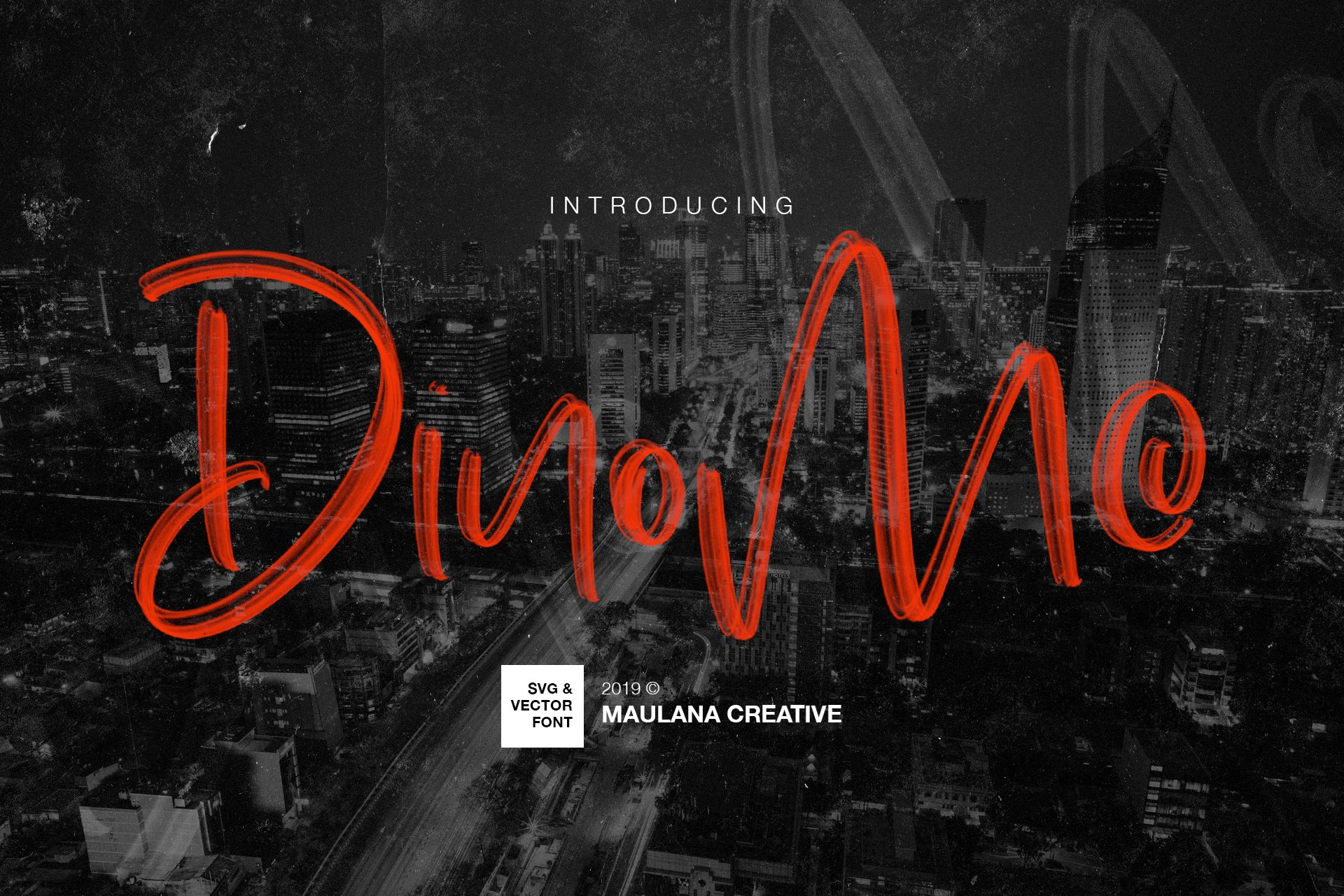
Dinomo SVG Brush Font
Dinomo SVG Brush Font is perfect for artistic brand identities, creative agency logos, handcrafted product packaging, artisan workshop signage, expressive social media graphics, organic beauty brands, authentic craft materials, bohemian lifestyle campaigns, creative studio branding, and expressive digital art projects.
What makes Dinomo SVG Brush Font so exciting is its revolutionary ability to bring authentic brush stroke artistry to digital typography through innovative SVG technology that preserves every nuance of hand-painted brush textures and organic artistic expression. This groundbreaking typeface captures the essence of spontaneous creativity and artistic authenticity with characters that seem to drip with paint and pulse with creative energy. The font's innovative design elements perfectly merge traditional brush painting techniques with cutting-edge digital technology, creating an indispensable tool that communicates artistic authenticity, creative passion, and handcrafted quality, making it essential for brands and artists who demand genuine artistic expression in their digital communications.
Dinomo SVG Brush Font comes in multiple font families including Regular, Bold, Light, Wet, Dry, Rough, Smooth, and Expressive variations. Each family member maintains the core artistic characteristics while offering different brush texture levels and creative approaches to suit various artistic and expressive design requirements.
The artistic authenticity in Dinomo SVG Brush Font makes it particularly effective for creative industries and artistic brands where conveying genuine hand-painted quality and artistic credibility is crucial for connecting with audiences who appreciate authentic creative expression and artisan craftsmanship. Its innovative SVG technology works exceptionally well across all digital platforms while maintaining the organic imperfections and artistic variations that make hand-painted lettering so compelling and authentic.
Creative industry professionals recognize how Dinomo SVG Brush Font transforms ordinary digital communications into powerful expressions of artistic authenticity and creative passion. The typeface's artistic character set includes natural brush variations, organic paint textures, and expressive elements that enhance the overall handcrafted atmosphere of any creatively-focused project.
For creative professionals serving artistic brands, craft industries, and expressive lifestyle companies, Dinomo SVG Brush Font serves as the perfect foundation for establishing memorable visual identities that capture the essential qualities of artistic authenticity, creative expression, and handcrafted originality that define successful brands celebrating the irreplaceable value of human creativity and artistic passion in an increasingly digital world.